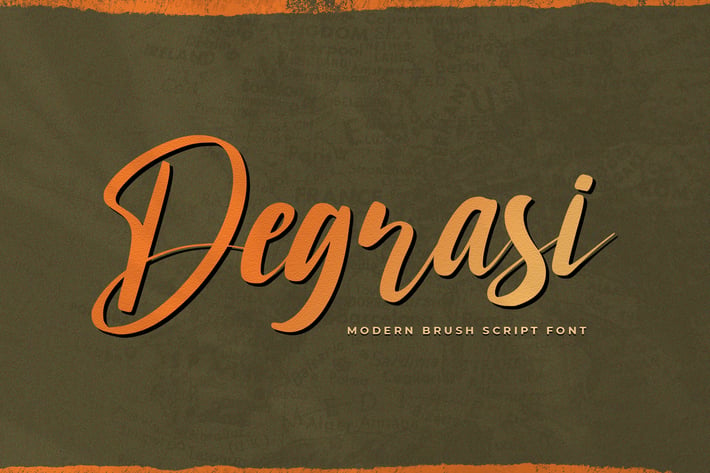
Degrasi - Brush Script Font
Introducing Degrasi - Modern Brush Script Font
Degrasi is a flowing and elegant handwritten font, created with the help of a brush pen. Get inspired by its unique and beautiful style and add it to your favorite designs!